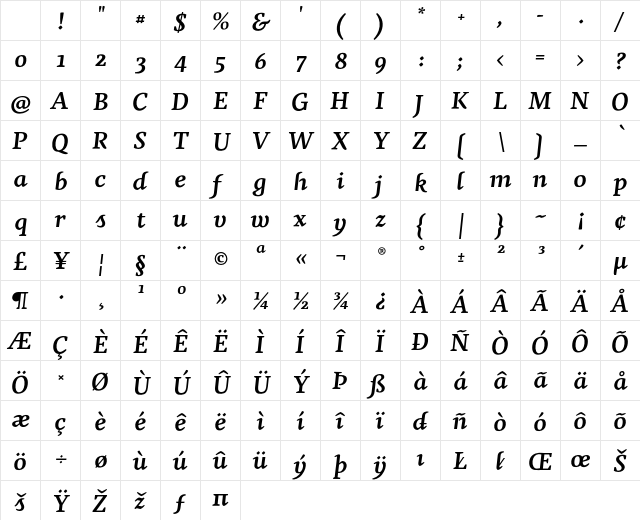
Agendatype flows with the natural rhythm of handwritten lettering, making it ideal for designs that call for warmth and personal expression. Its bold stroke weight gives it real presence on the page.
Font Pairing: Combine Agendatype with a simple geometric sans for maximum contrast - the tension between flowing curves and clean structure is a classic typographic pairing.
Pro Tip: Use Agendatype for short runs of text - names, titles, or taglines. Extended body copy in script faces tires the eye quickly.